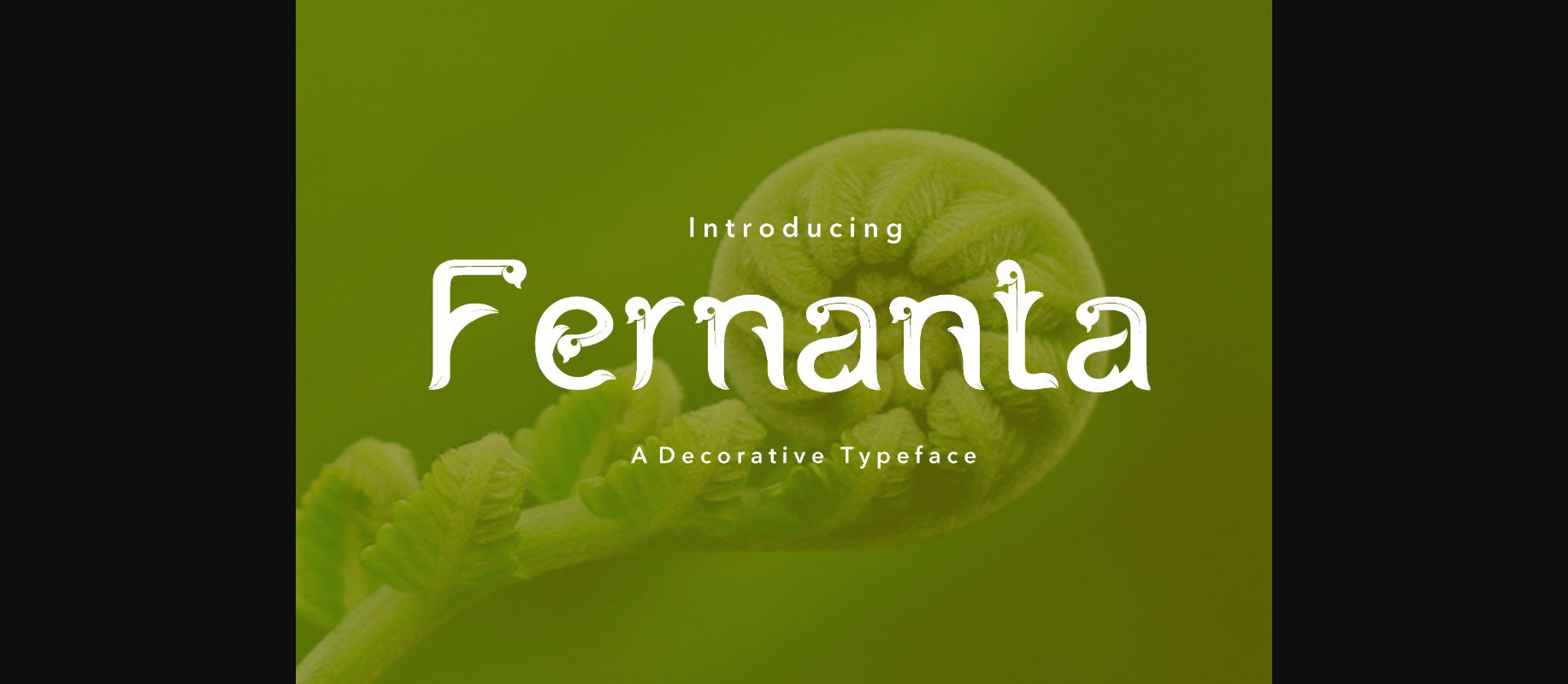
Fernanta Font
About Fernanta Font
This typeface, Fernanta, is inspired by the beauty of ornamental motives of Minangkabau’s culture, in Indonesia. It originated from ornamental Kaluak Paku motif, giving this font a culturally relevant and thoughtful approach.. Fernanta is a decorative set and can be used as display letters.